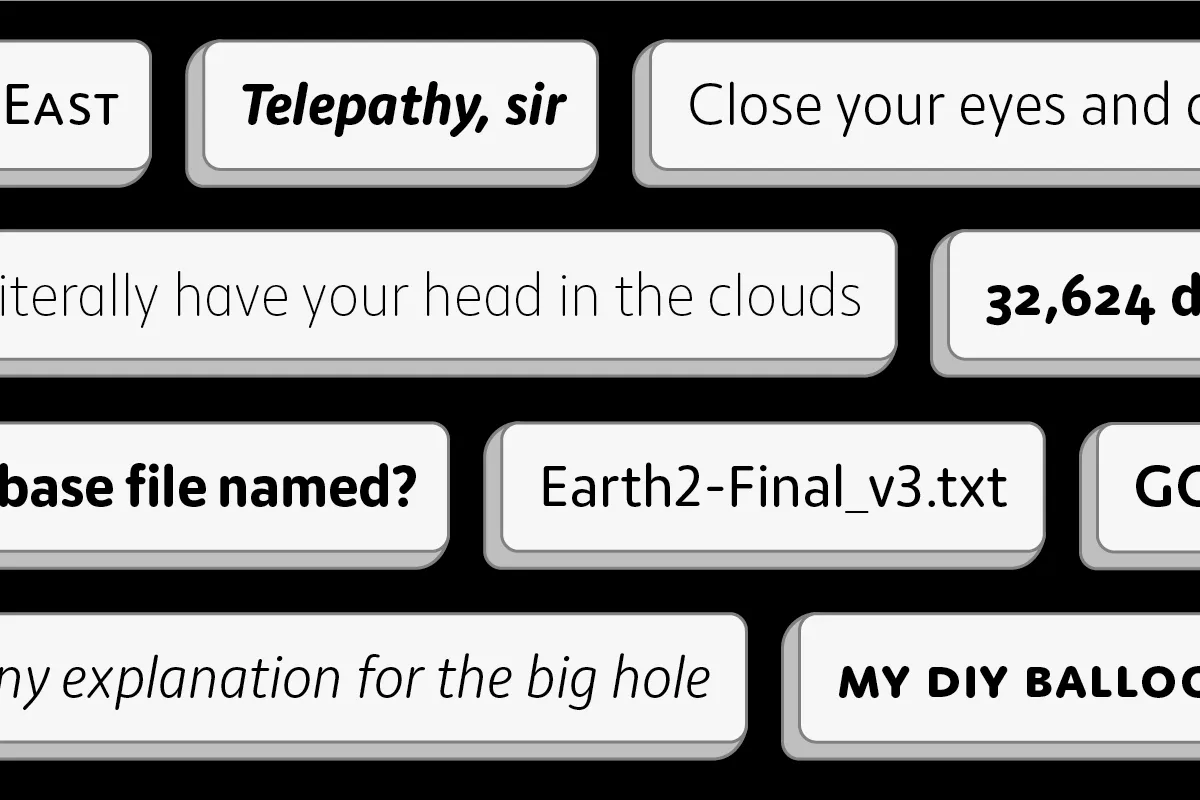
New Release: Moniker
We’re excited to announce our latest typeface, Moniker by Eric Olson. Moniker is a rounded sans serif that captures the informal tone of the genre while maintaining a sensible workhorse mentality. The family is made up of five weights with lively italics, and with features like small caps and multiple numeral styles, the fonts can take on the small (tables and text) and big (headlines and logos).